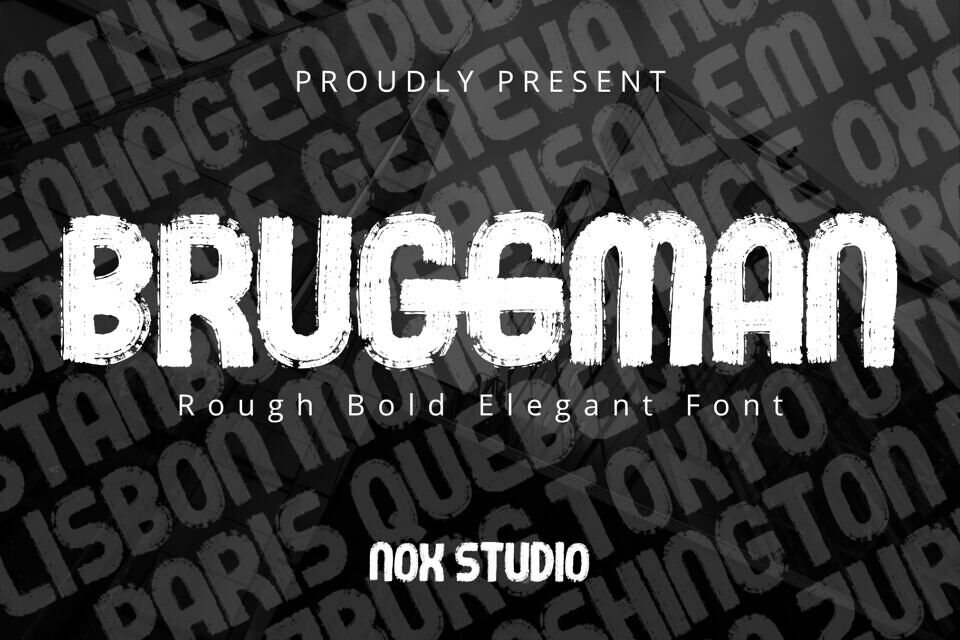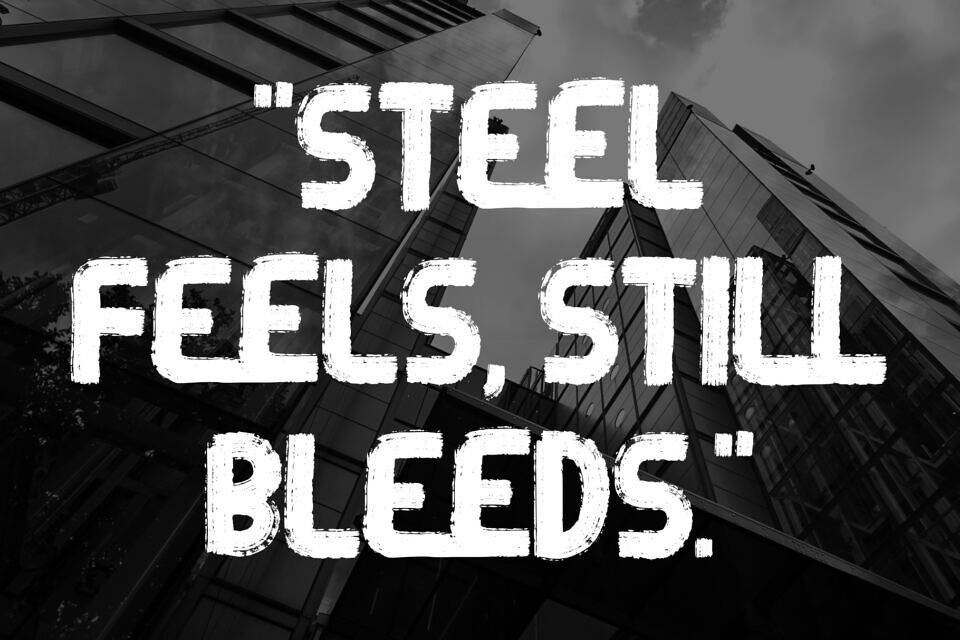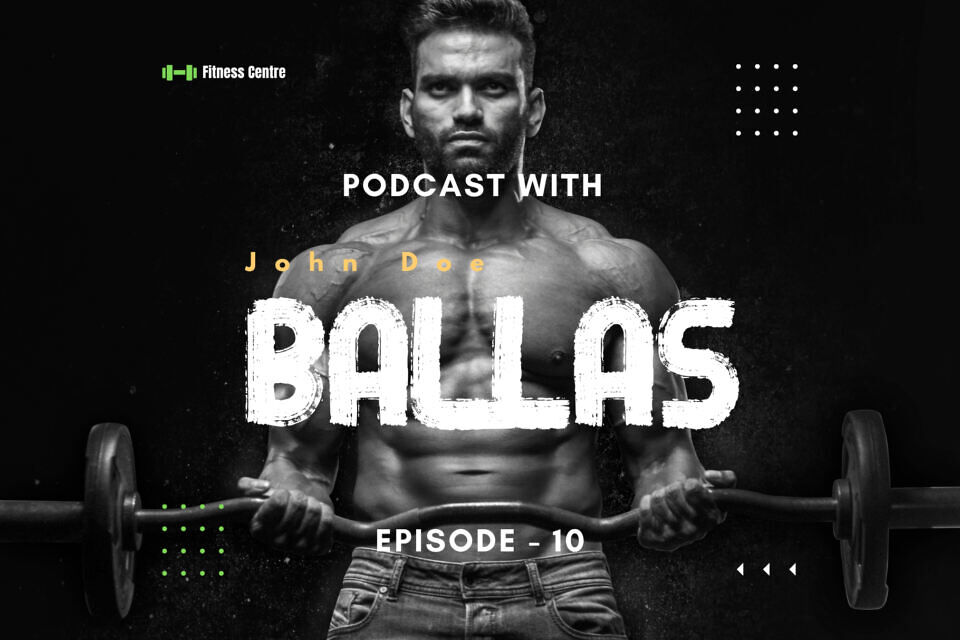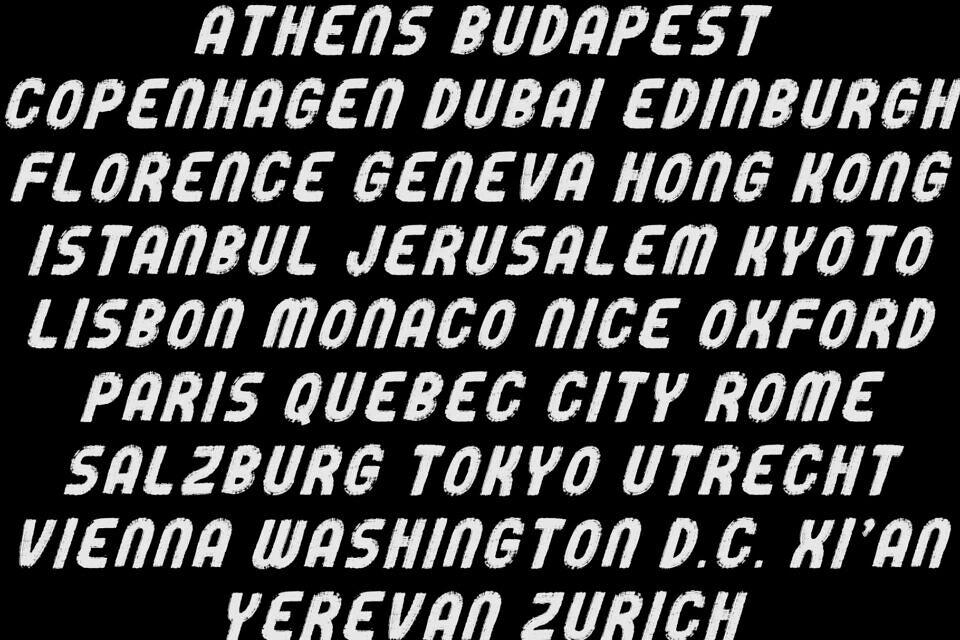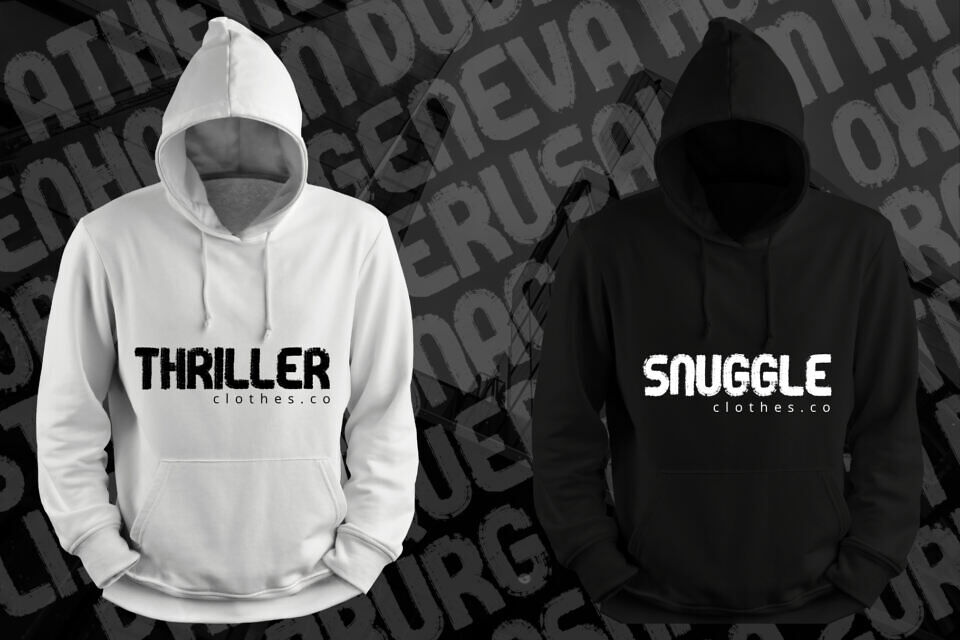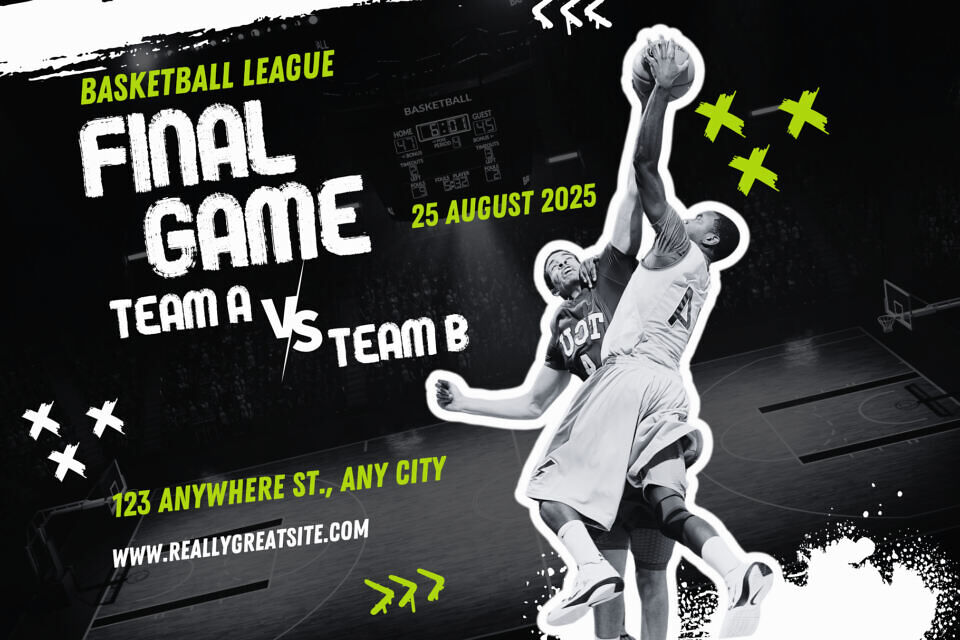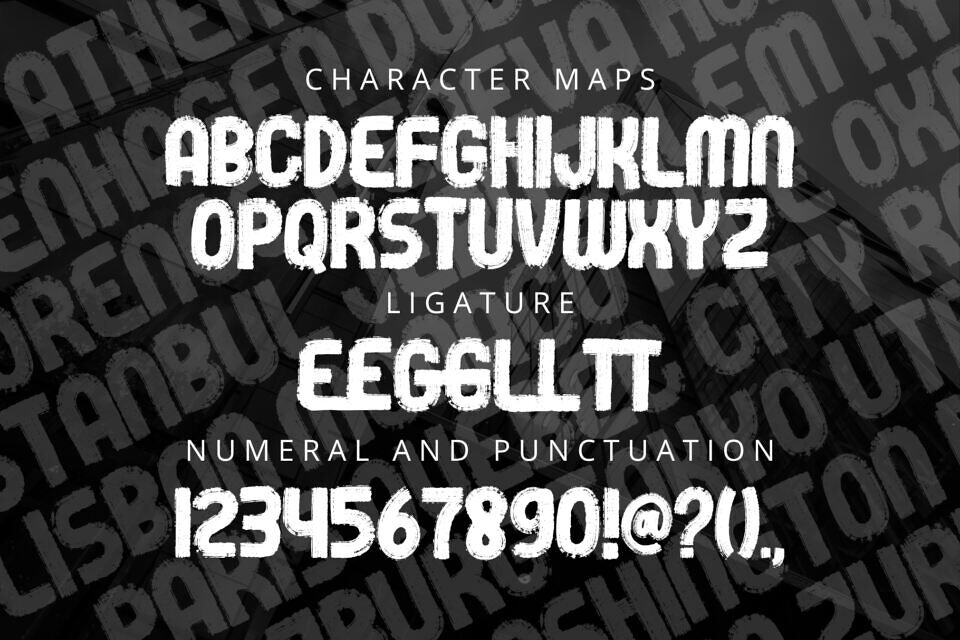
Introducing Bruggman, a captivating display font that mimics the fluid unpredictability of rough paint strokes with an intrinsic elegance. Seamlessly blending masculine strength within its delicate design, Bruggman exudes a veritable aura of mystery and sophistication.
It is the perfect choice for design projects that require a dash of elegance wrapped in a shroud of enigma while maintaining a raw, muscular feel.